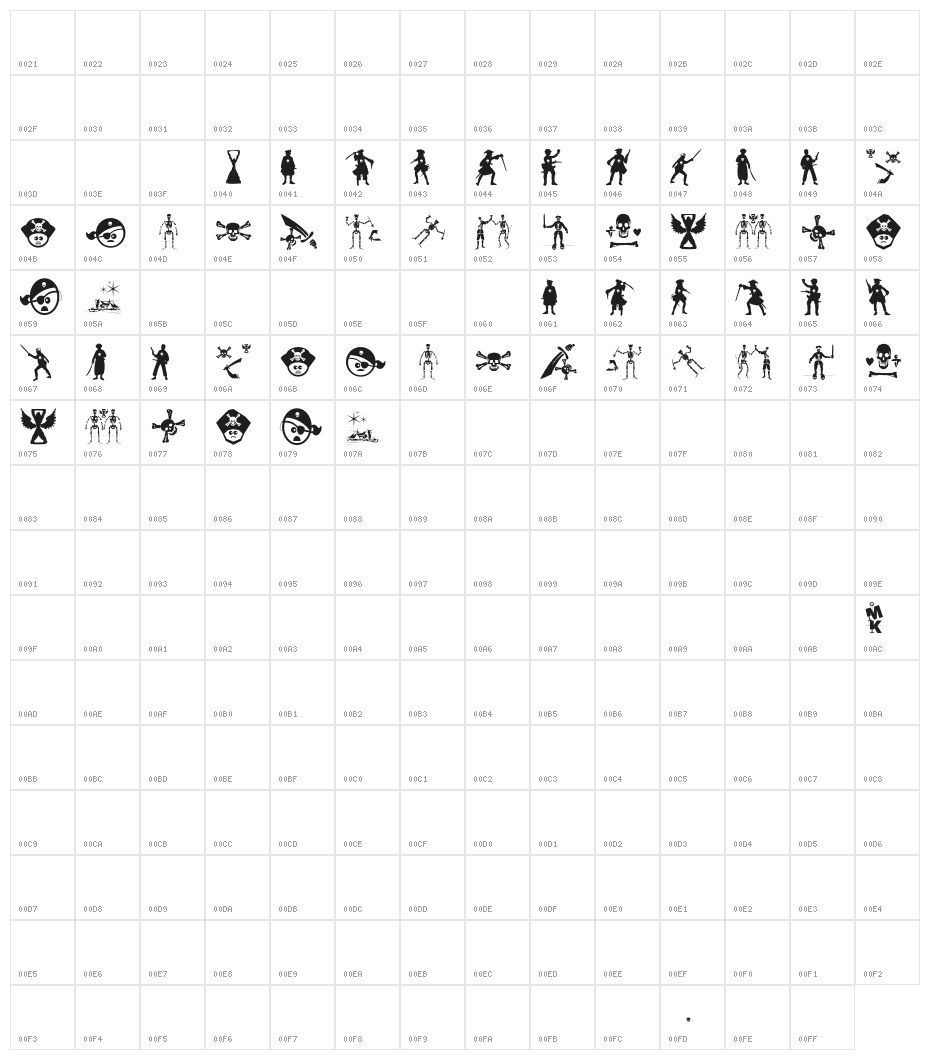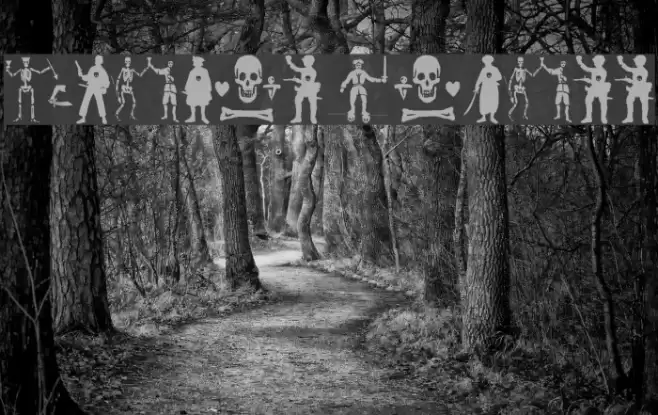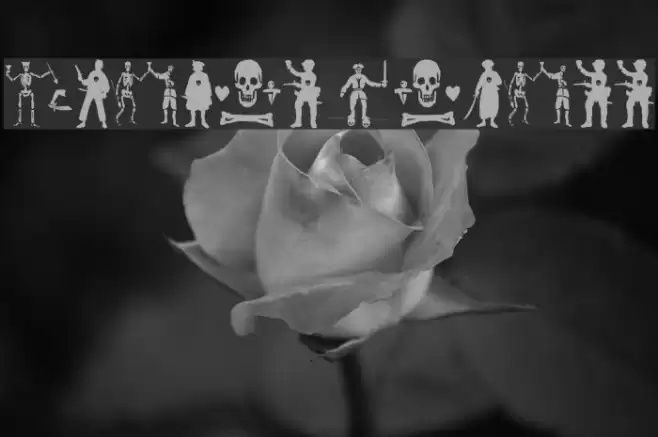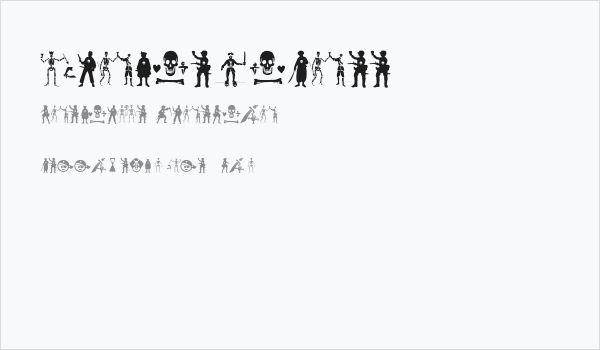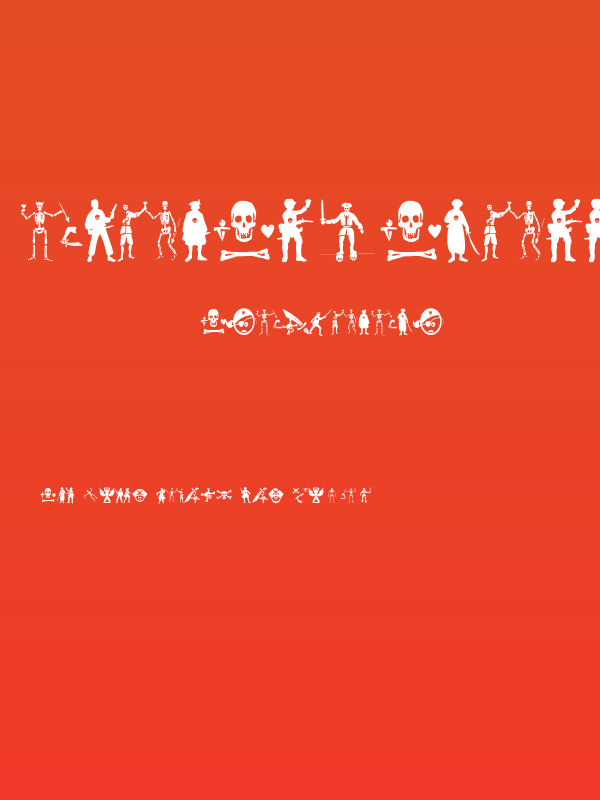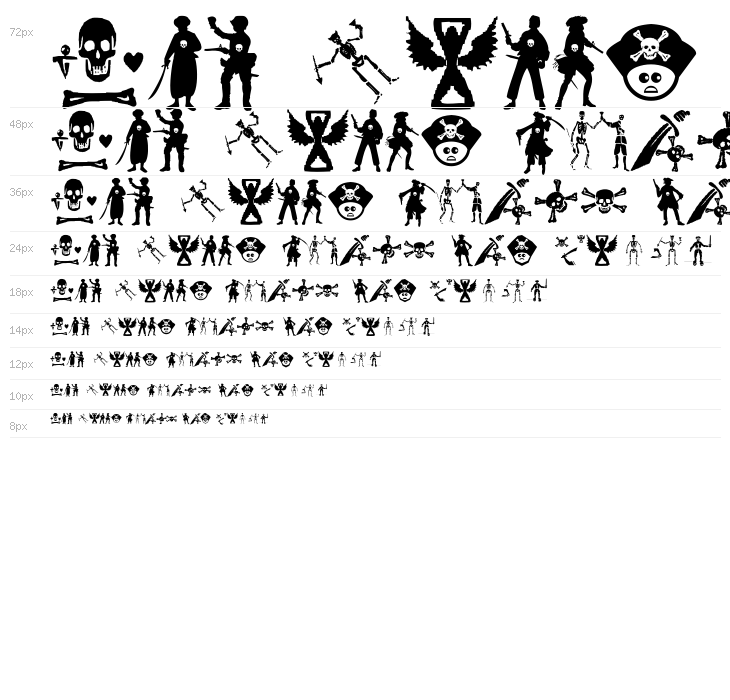
PiratesThree Font
PiratesThree Description
A decorative font featuring pirate-themed silhouettes and symbols, including pirates, skulls, and crossbones.
| Use Case | Logos, Headlines |
| Proposed Projects | Party invitations, themed posters, decorative elements. |